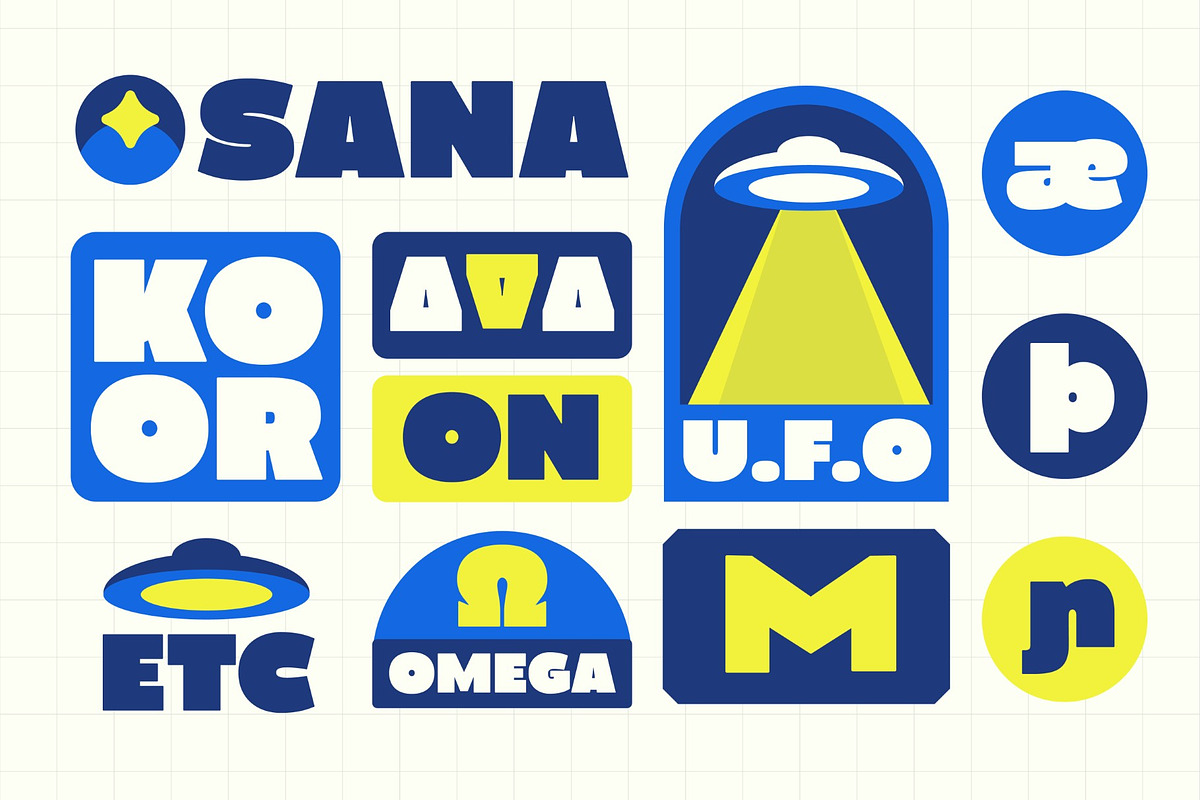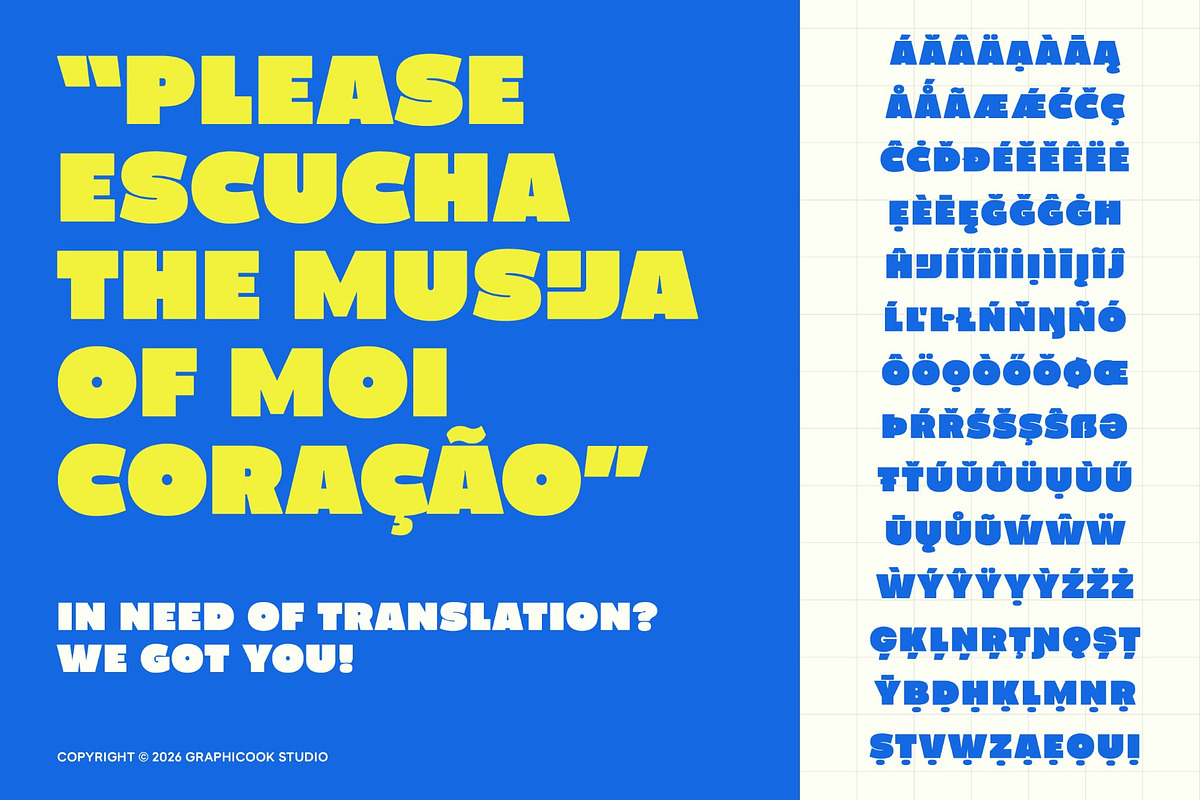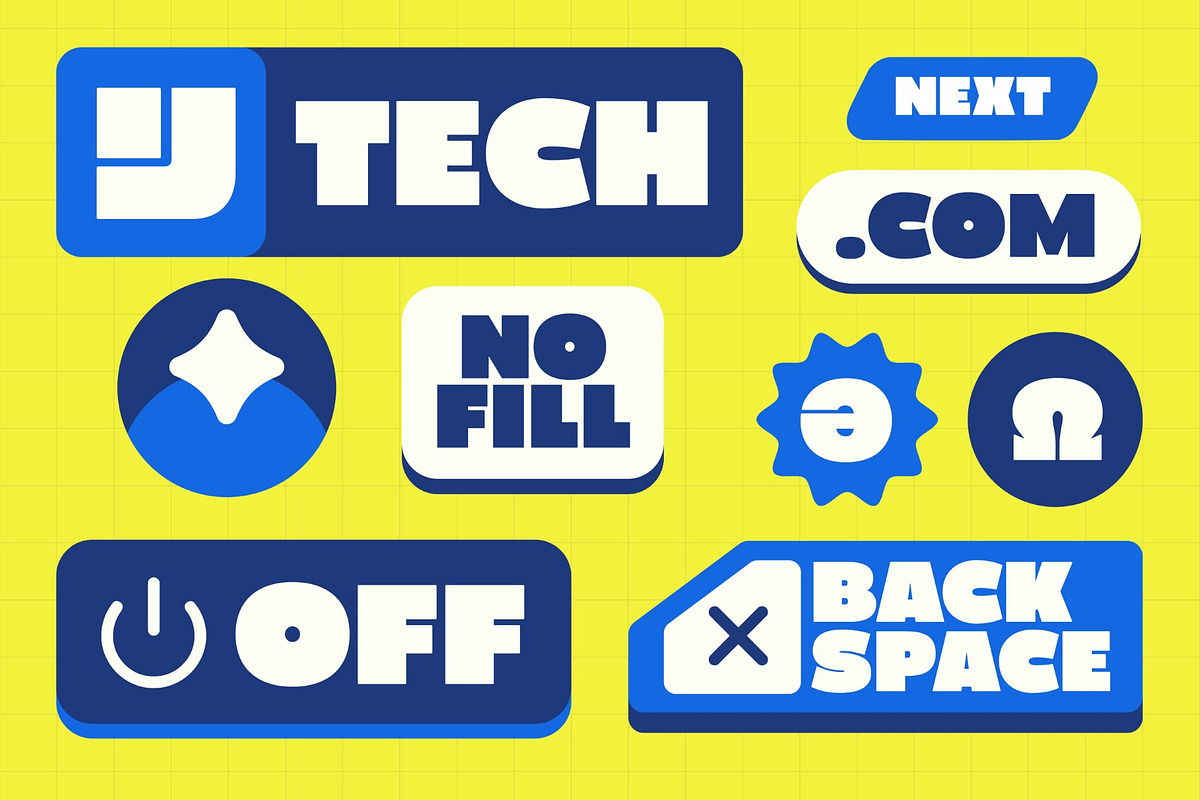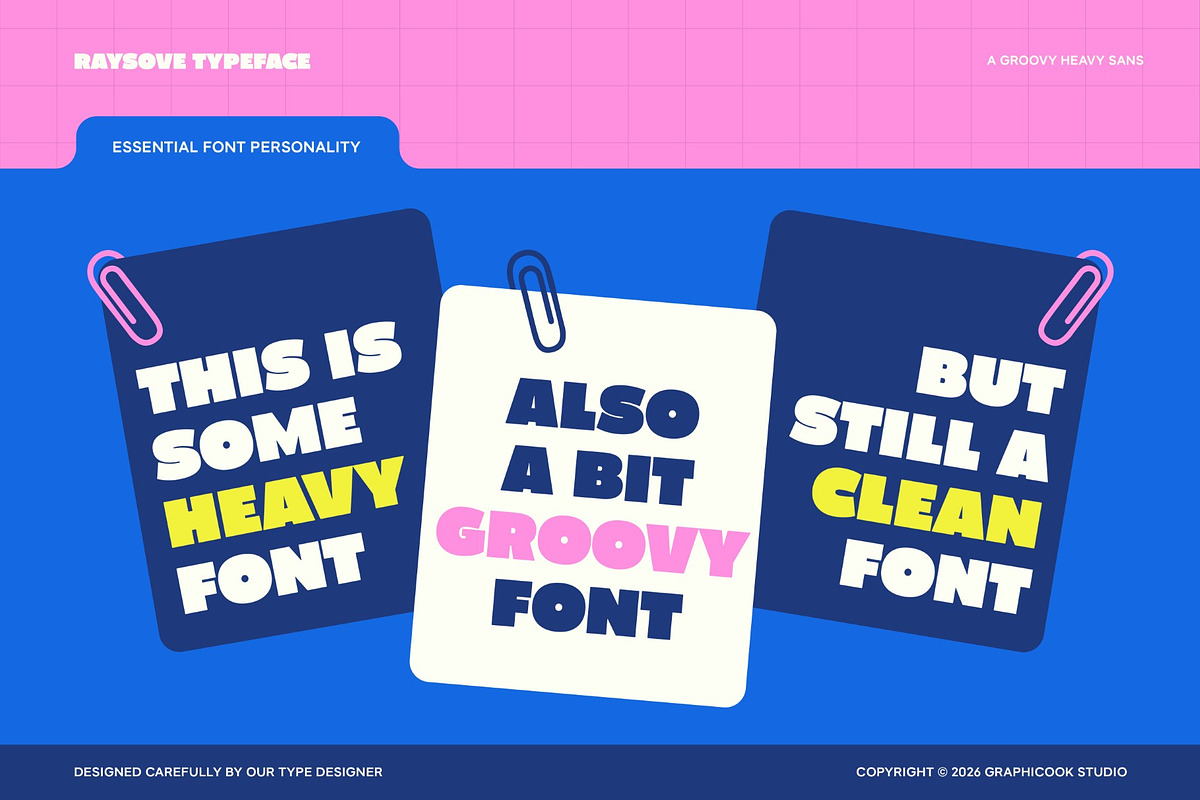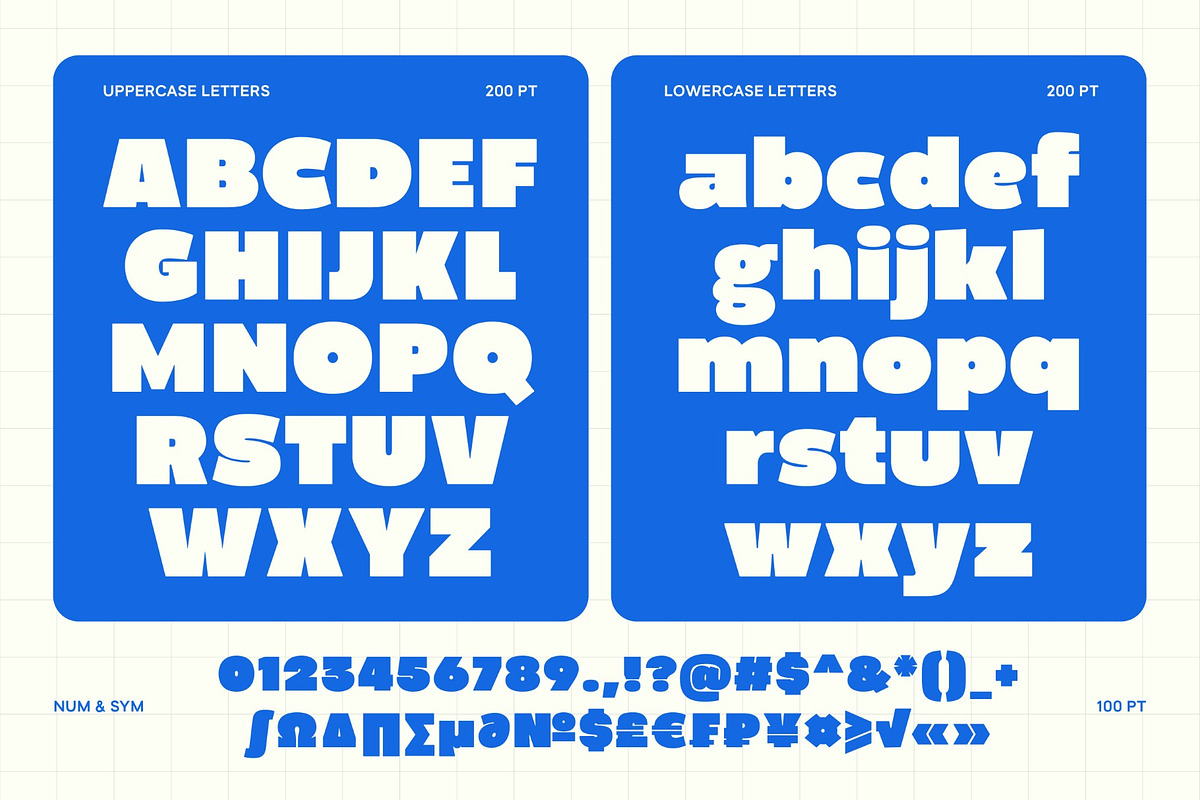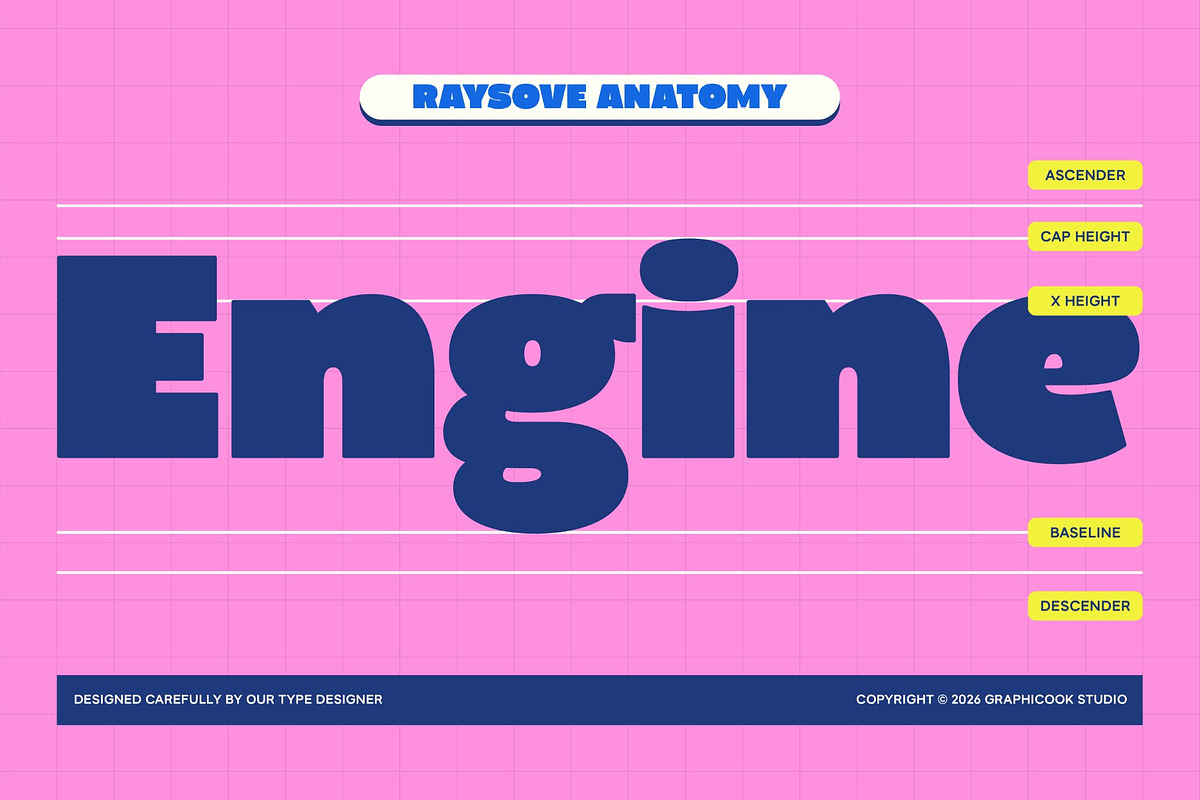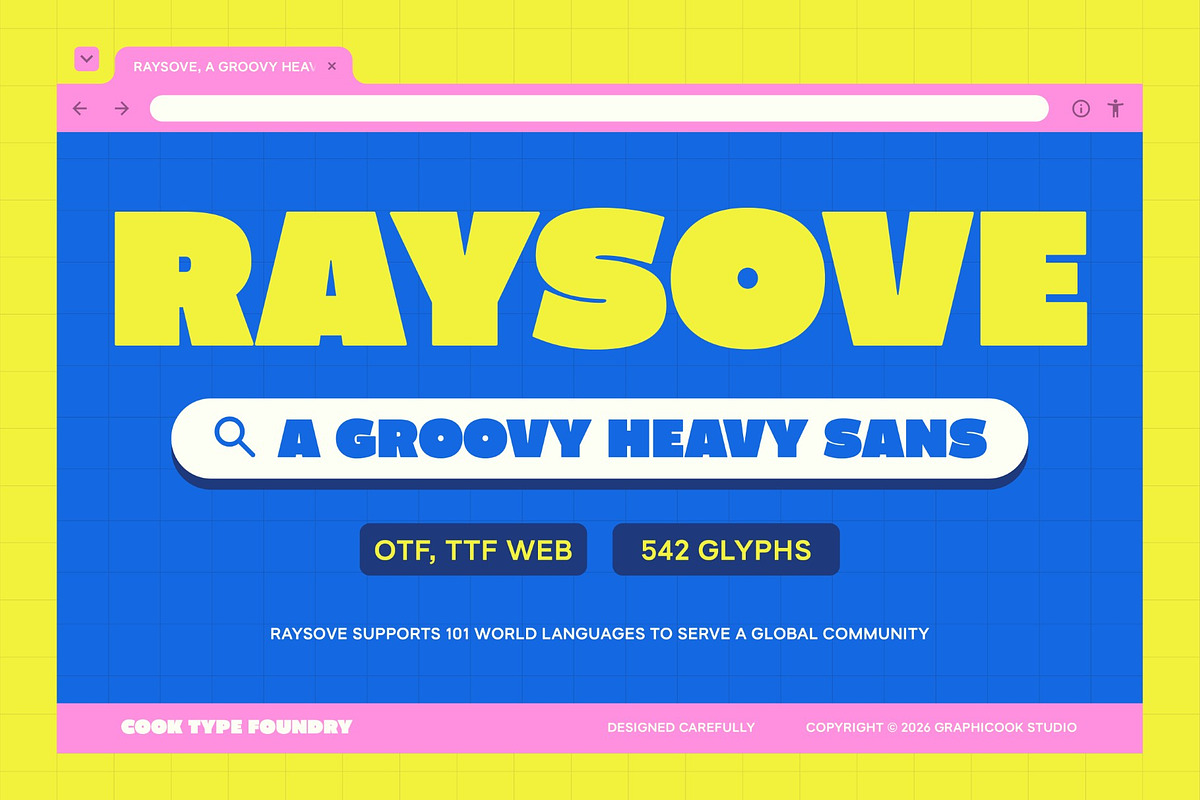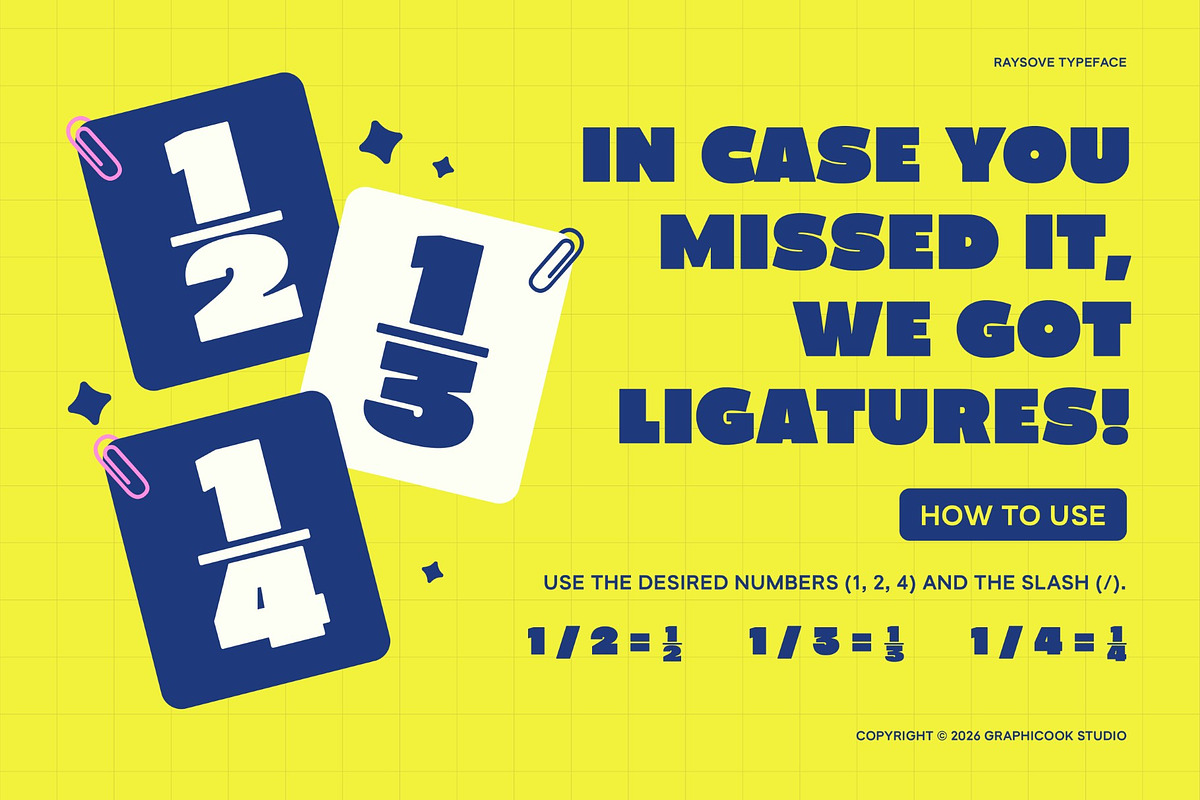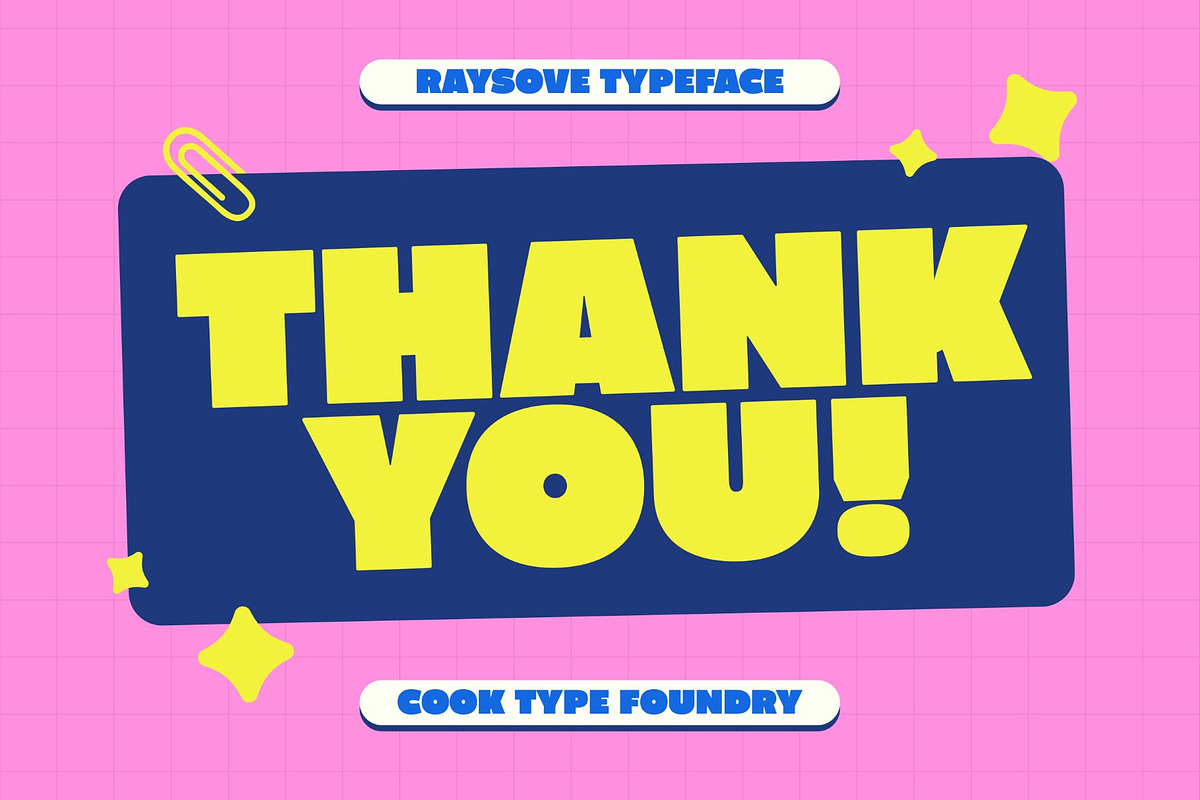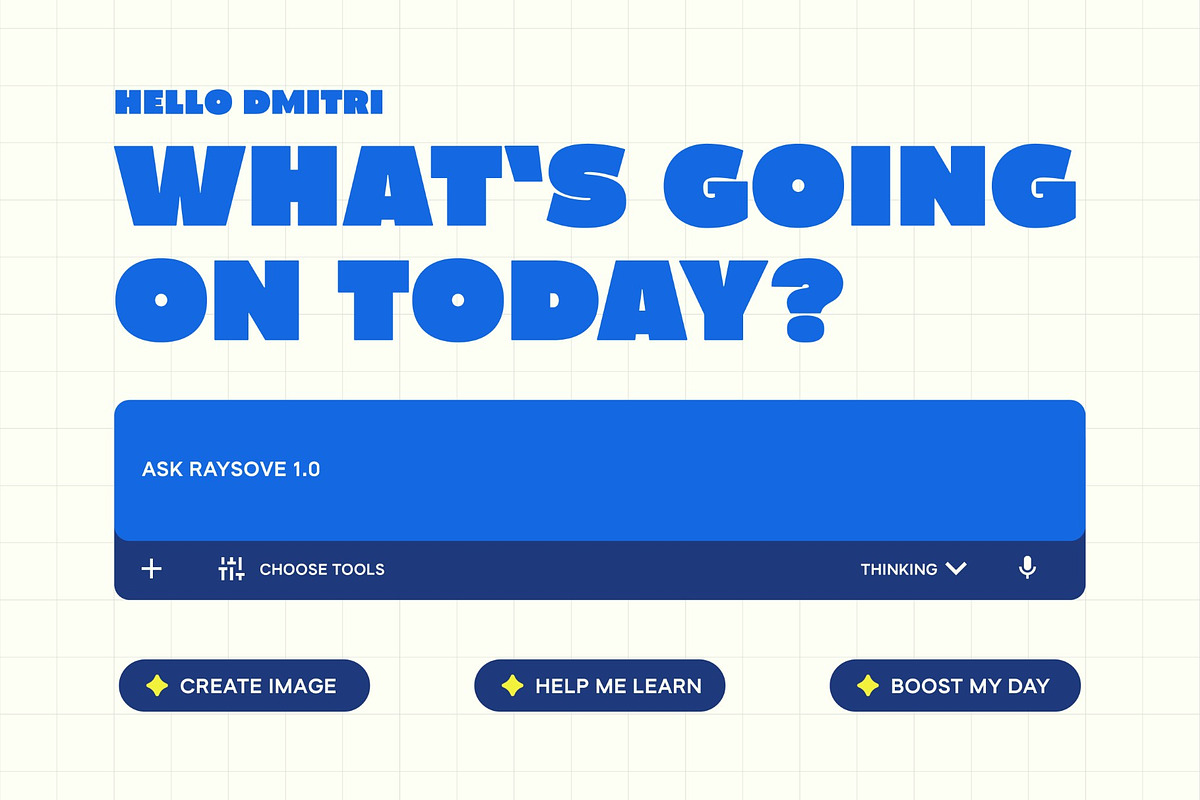
Raysove
Raysove is a groovy heavy sans-serif font featuring strong, condensed letterforms with balanced proportions. Its bold and playful character makes it ideal for expressive designs that aim to stand out.
It is perfect for headlines, logotypes, magazines, packaging, quotes, movies, games, cover albums, book covers, and flyers, it's a perfect solution for creating eye-catching designs that stand out in any context.